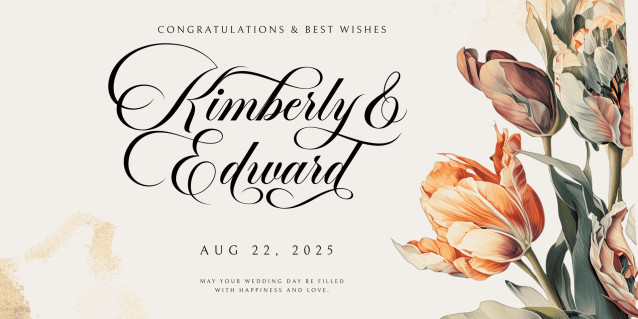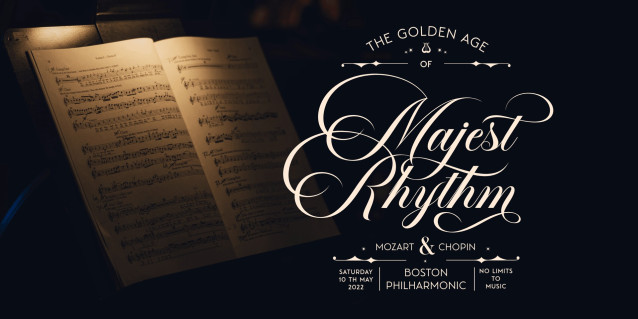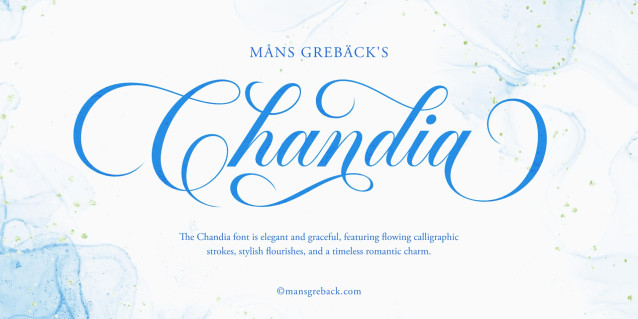
Chandia Script Font is a dramatic cursive typeface, drawn with high precision and an elegant hand.Flourishing with romantic swashes and long tails, the lettering flows with a confident grace that brings to mind engraved invitations, ballroom dances, and handwritten vows. The uppercase characters are especially expressive, designed with ornamental loops that accentuate the rhythm of the script without losing clarity.
Use underscore _ after any word to make a swash.
Example: Beautiful_
Or simply use one of the 100 decorative alternates to give a flair to your type work.
With both bold presence and gentle curves, Chandia finds balance between traditional calligraphy and modern sophistication.
The font is built with advanced OpenType functionality and guaranteed top-notch quality, containing stylistic and contextual alternates, ligatures and more automatic and manual features; all to give you full control and customizability.
It has extensive lingual support, covering all Latin-based languages, from North Europa to South Africa, from America to South-East Asia. It contains all characters and symbols you’ll ever need, including all punctuation and numbers.
Designed by Mans Greback, a prolific type artist known for his expressive lettering and technical craftsmanship.